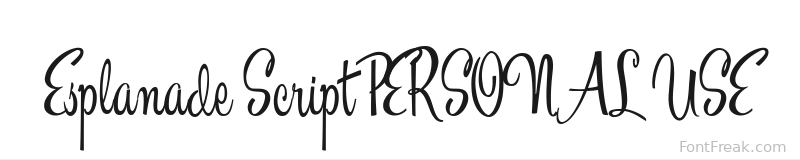
Esplanade Script PERSONAL USE
About Esplanade Script PERSONAL USE
Esplanade Script PERSONAL USE is an elegant handwritten font designed by Mans Greback, categorized as a script typeface. This font features smooth, flowing lines that evoke a sense of sophistication and charm, making it ideal for a variety of creative projects. The stroke weight is consistent, with moderate contrast that enhances its legibility while maintaining a graceful appearance. The spacing between characters is balanced, allowing for seamless readability, and the font's decorative elements, such as the swirls and curves, add a unique flair.
This versatile font is perfect for several use cases. It shines in wedding invitations, where its romantic style can beautifully convey the joy of the occasion. Additionally, Esplanade Script can elevate movie posters, giving them a touch of class that attracts attention. Restaurant menus can also benefit from its stylish design, creating an inviting atmosphere for diners. Content creators looking to add a personal touch to their blogs or social media posts will find this font particularly appealing. Graphic designers and small business owners will appreciate its ability to enhance branding materials with a distinctive and sophisticated flair.
The target audience for Esplanade Script includes graphic designers, small business owners, and content creators who seek a handwritten style that adds personality to their projects. The font's unique aesthetic allows it to stand out in a crowded market, making it an excellent choice for those looking to make a memorable impression. The Esplanade Script PERSONAL USE font free download offers an opportunity to incorporate elegance and charm into your designs without the constraints of a commercial license. With its captivating style and numerous applications, this font is sure to inspire creativity and elevate any project.